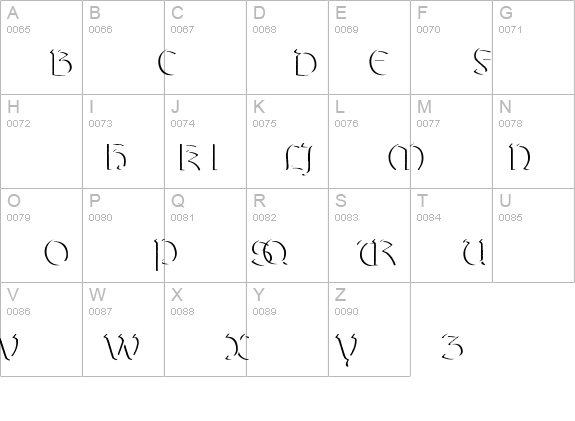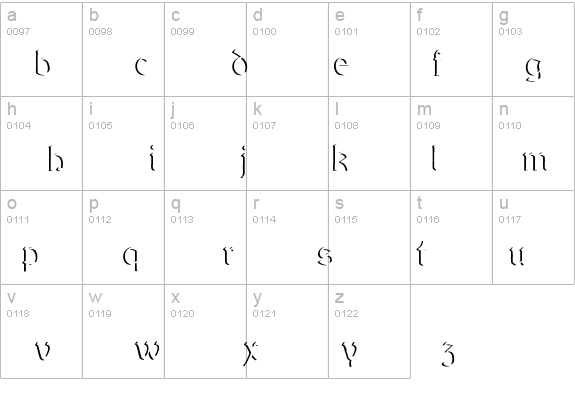
DundalkEmbossed Font Details
DundalkEmbossed font is a stunning display typeface that exudes elegance and sophistication. Its intricate embossed details add a touch of luxury to any design project, making it perfect for branding, packaging, and more. The font features a unique blend of modern and classic elements, creating a timeless appeal that is sure to captivate your audience. What's even better is that DundalkEmbossed font is available for free download at FontsMarket.com. This means you can easily access this beautiful typeface and use it in your projects without any cost. Don't miss out on the opportunity to elevate your designs with this exquisite font - download DundalkEmbossed today and let your creativity shine!